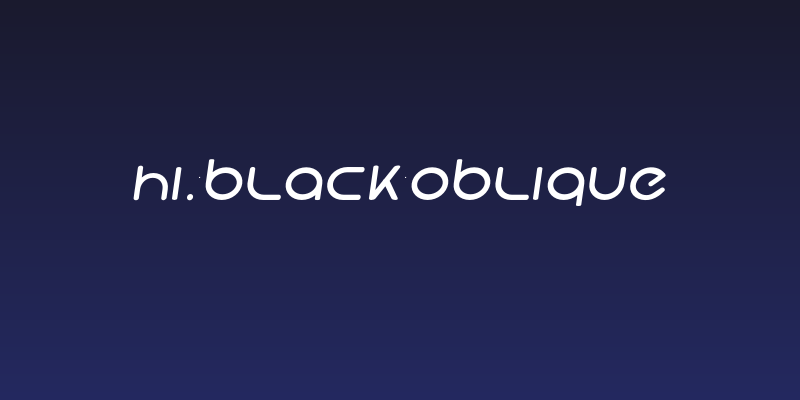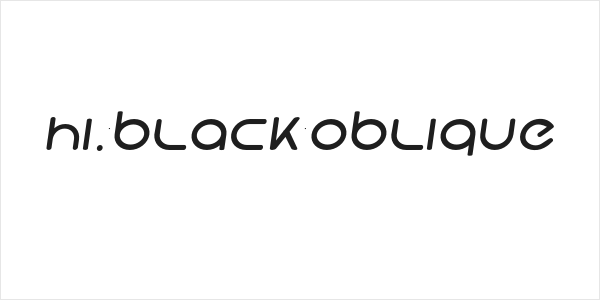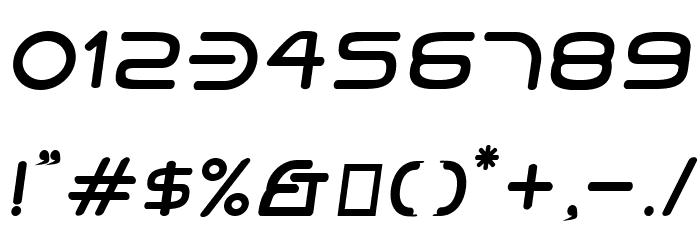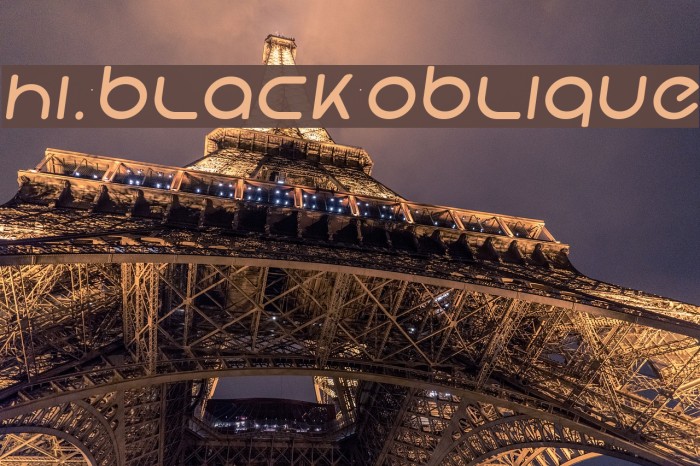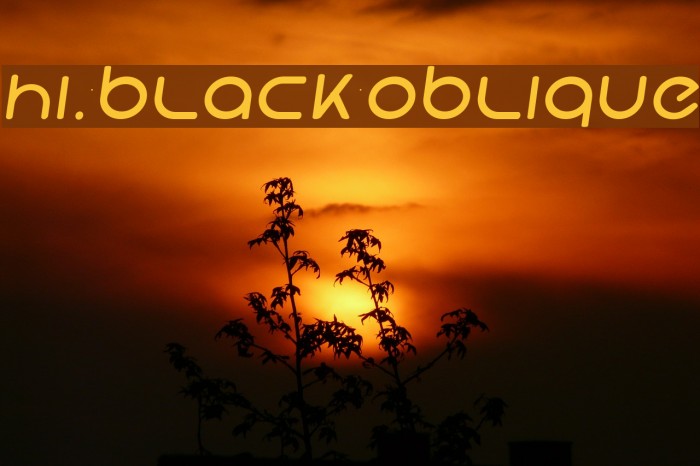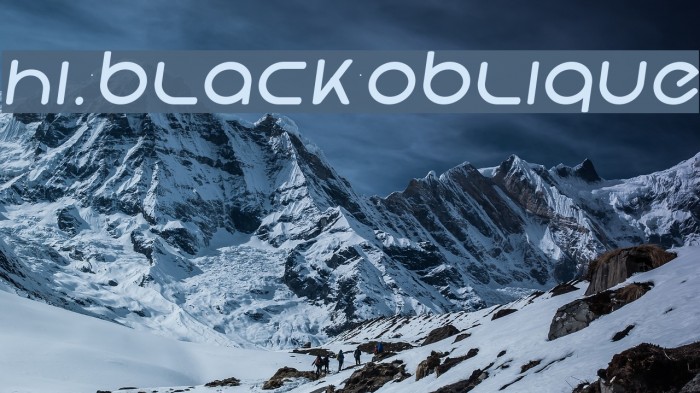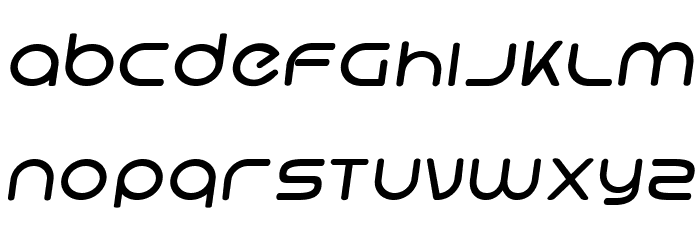
Hi. Black Oblique Font
Hi. Black Oblique Description
This font features a sleek, modern design with a distinct oblique style, giving it a dynamic and forward-leaning appearance. The characters are rounded with smooth curves and consistent stroke thickness, contributing to a futuristic and streamlined look. The spacing between characters is balanced, ensuring readability while maintaining a cohesive visual flow. The numerals and special characters are designed to match the overall aesthetic, making this font versatile for various applications.
| Use Case | Headlines, Logos, Digital Interfaces |
| Proposed Projects | Ideal for tech branding, modern advertising, futuristic posters, and digital interfaces. |